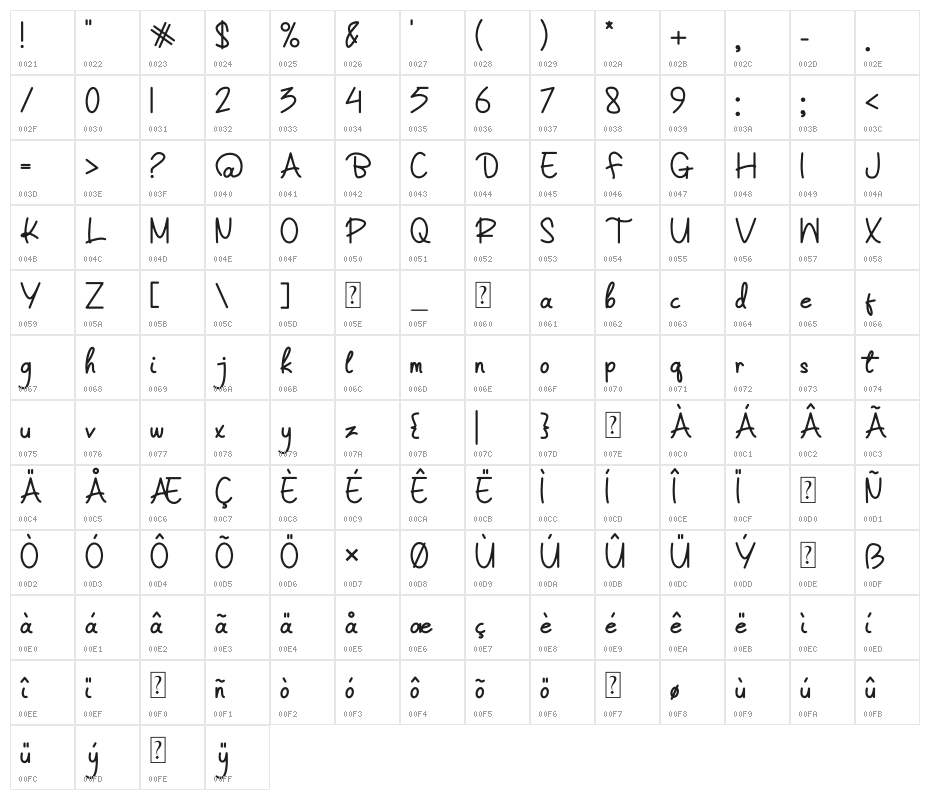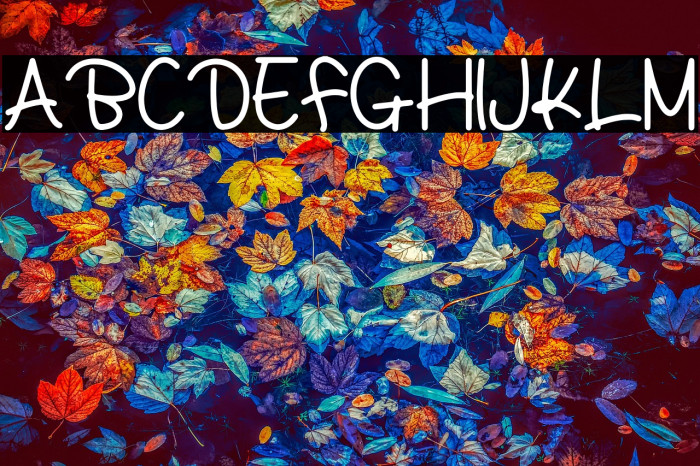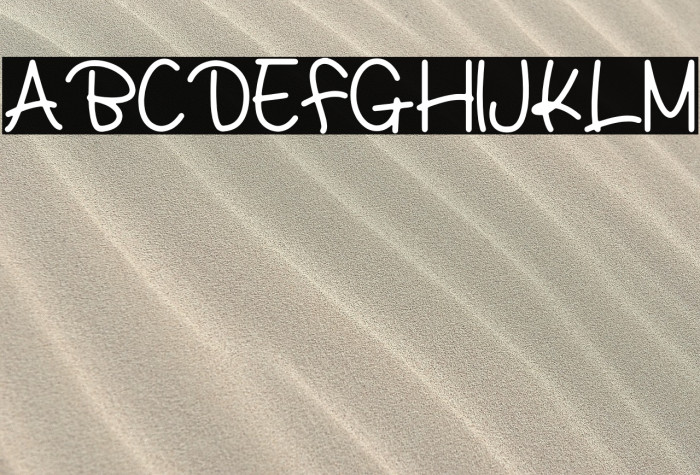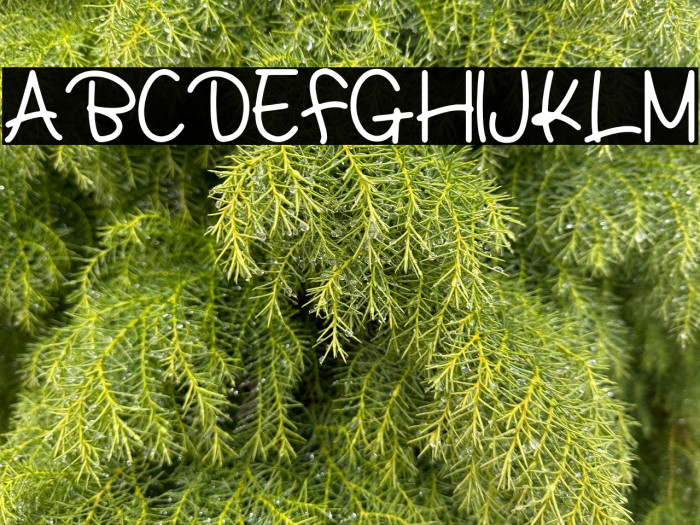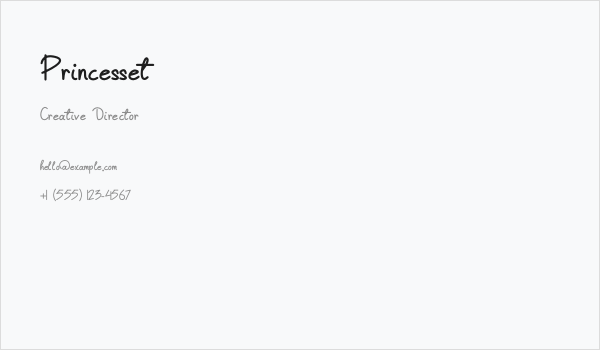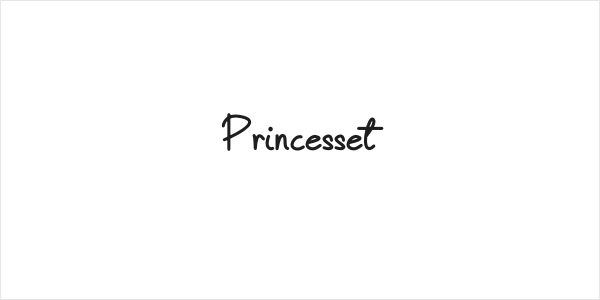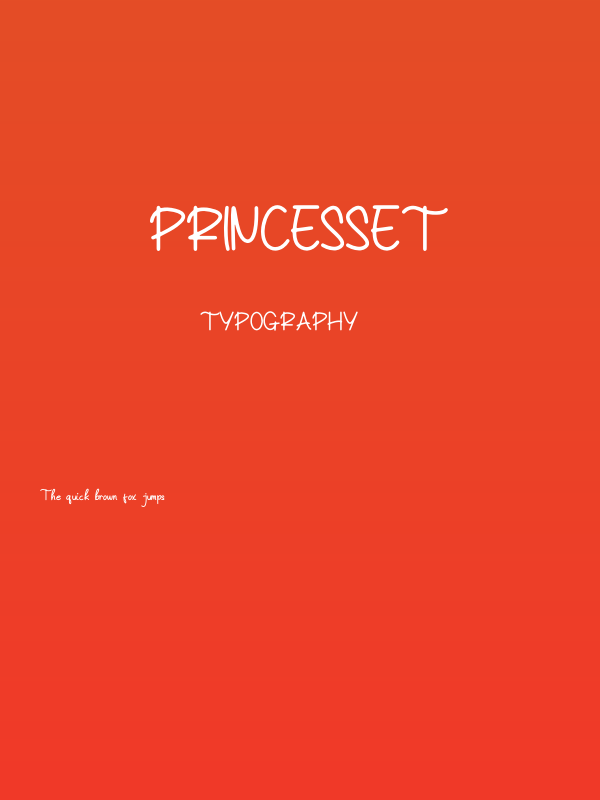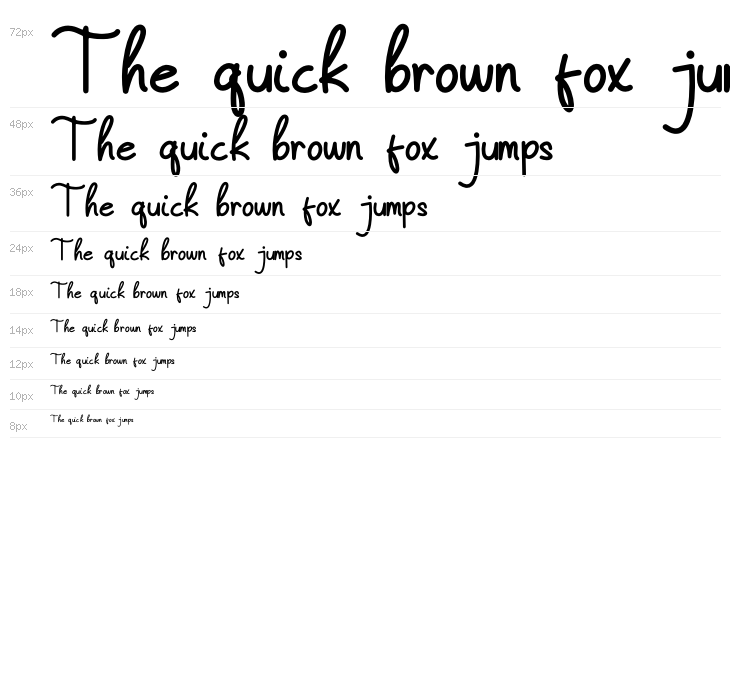
Princesset Font
Princesset Description
This font features a playful and casual handwritten style, characterized by its smooth, flowing lines and slightly irregular shapes. The uppercase letters are tall and slender, with a slight slant that adds a dynamic feel. The lowercase letters are more rounded and compact, maintaining a consistent flow that enhances readability. The numerals and special characters follow the same playful aesthetic, making them suitable for informal and creative projects. The overall appearance is friendly and approachable, perfect for conveying a sense of warmth and personality.
Overall StyleCasual, Playful
Use CaseLogos, Headlines, Informal Texts
Proposed ProjectsIdeal for greeting cards, children's books, playful branding, and social media graphics.